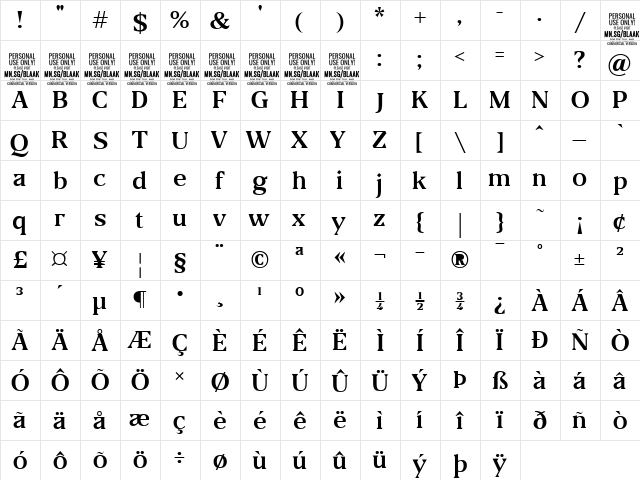
Blaak Regular PERSONAL USE Regular
| Foundry | Mans Greback |
| Designer | Unidaas & Mans Greback |
Design Context for Blaak Regular PERSONAL USE Typeface
Blaak Regular PERSONAL USE is a composed and adaptable typeface that performs quietly and consistently across a wide range of design contexts.